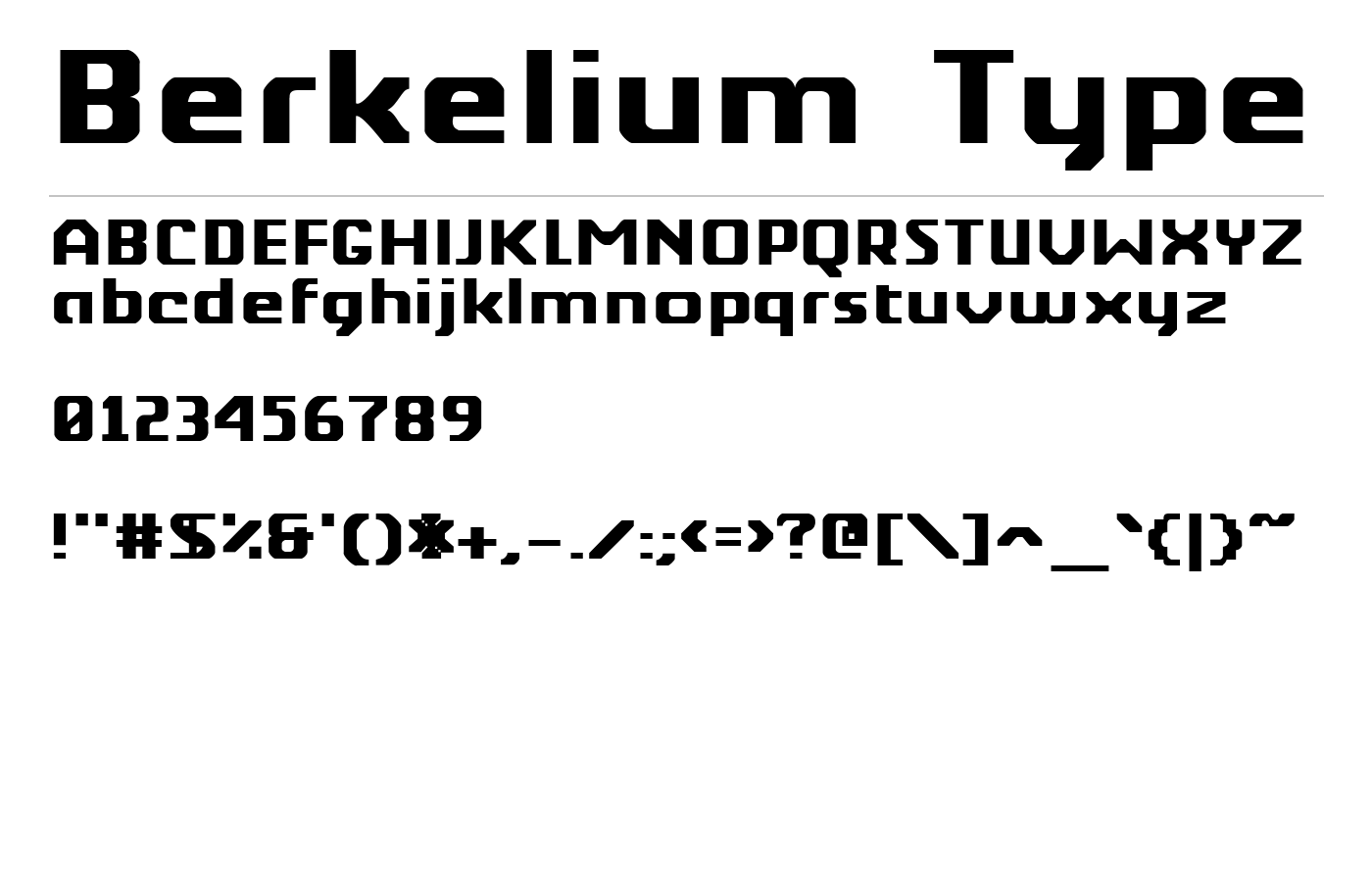
Berkelium Type is a bold, geometric sans serif font with a futuristic and industrial vibe. Its strong, uniform strokes and angular letterforms create a sturdy, technical appearance, making it an excellent choice for technology, branding, and display uses where a modern, assertive look is desired. The font works best in headlines, logos, and designs that need a striking, modern impact.
Berkelium Type Font
About Berkelium Type Font